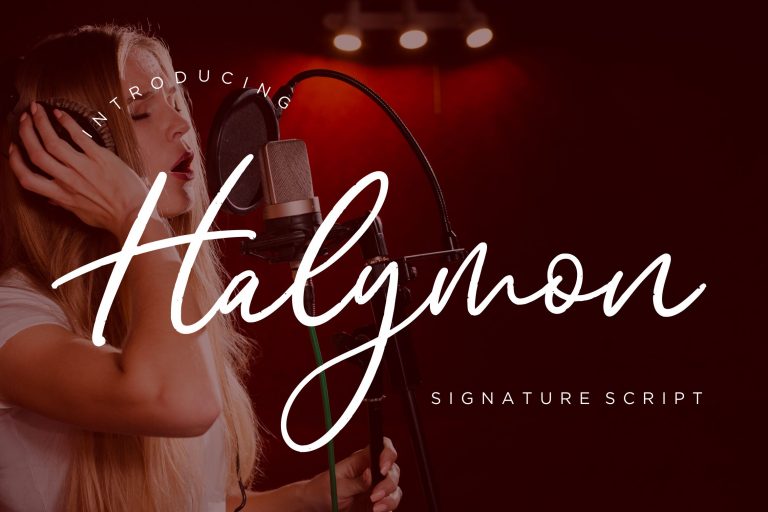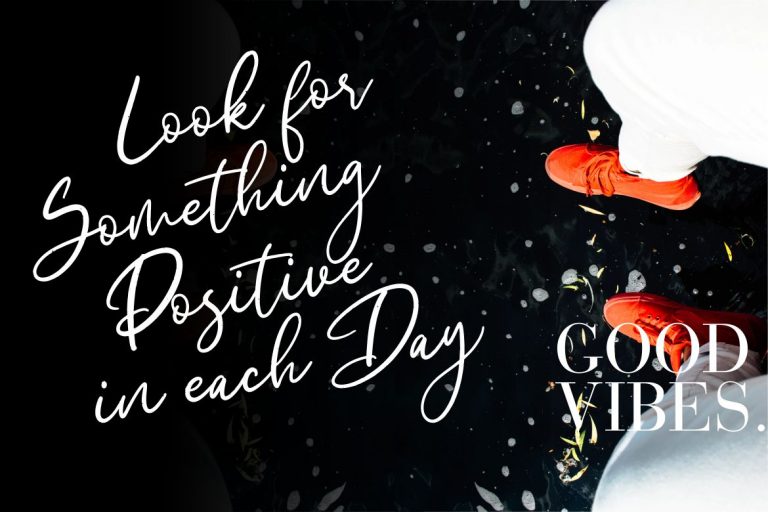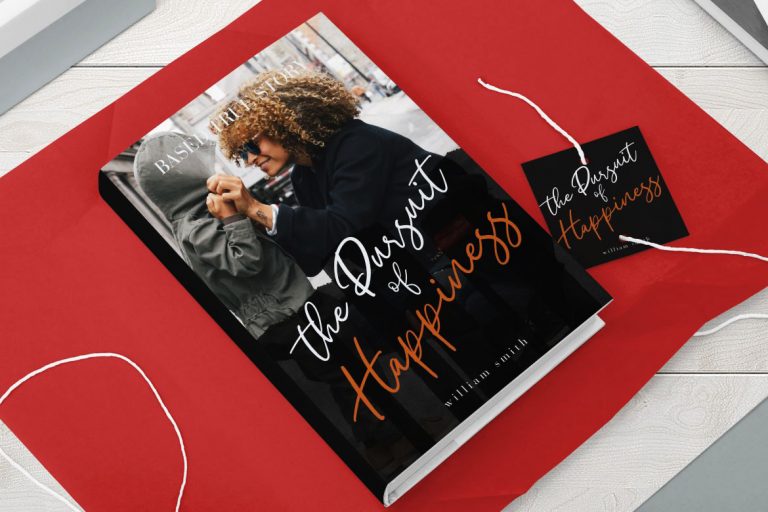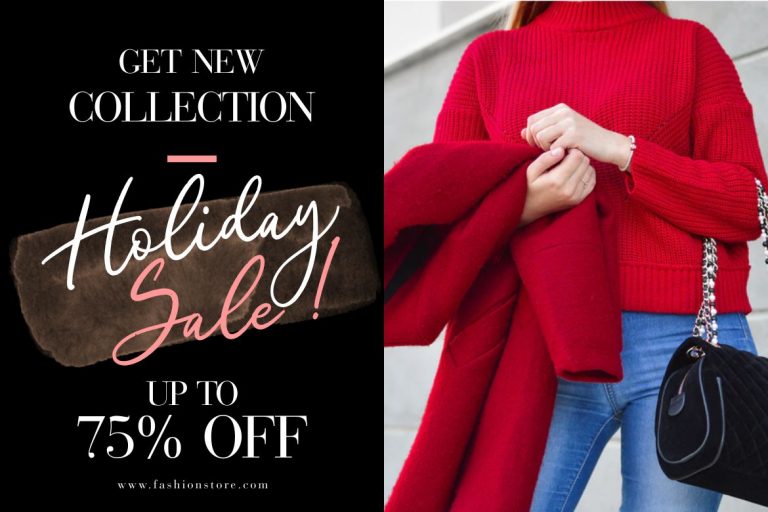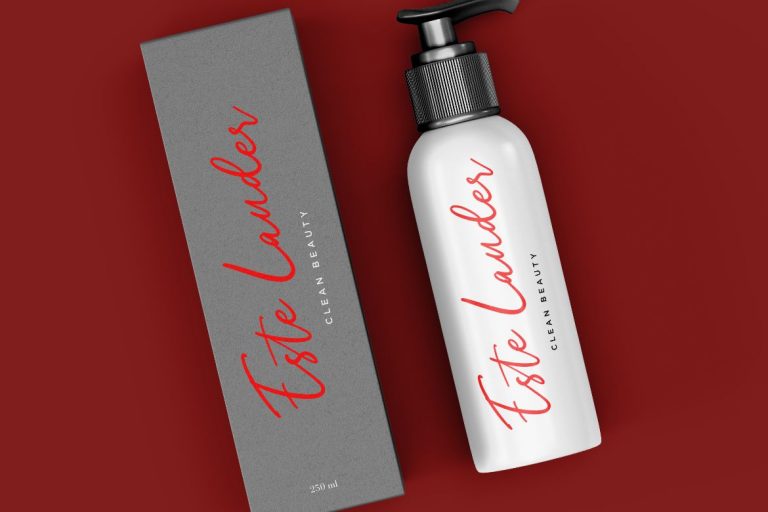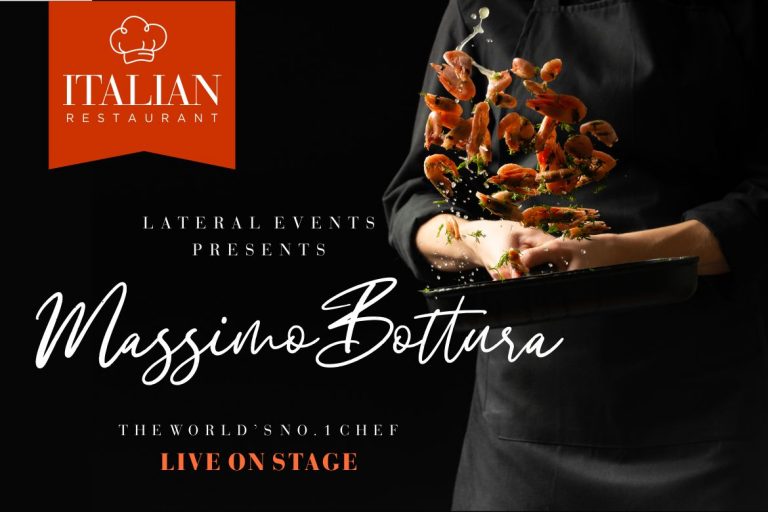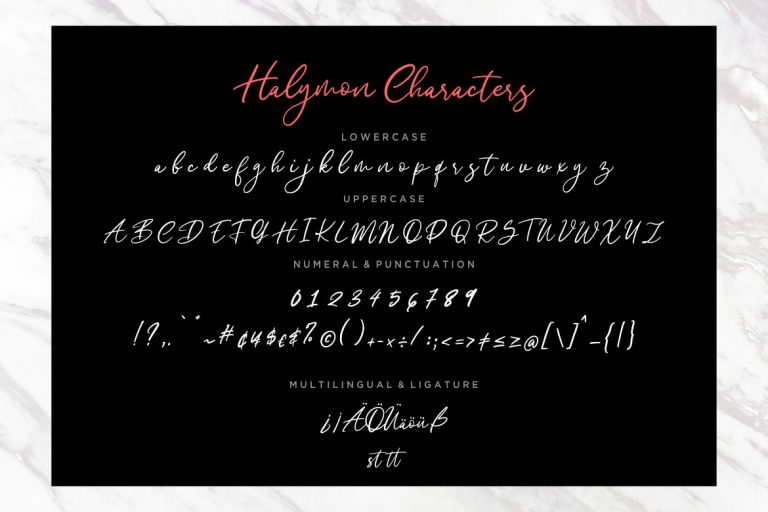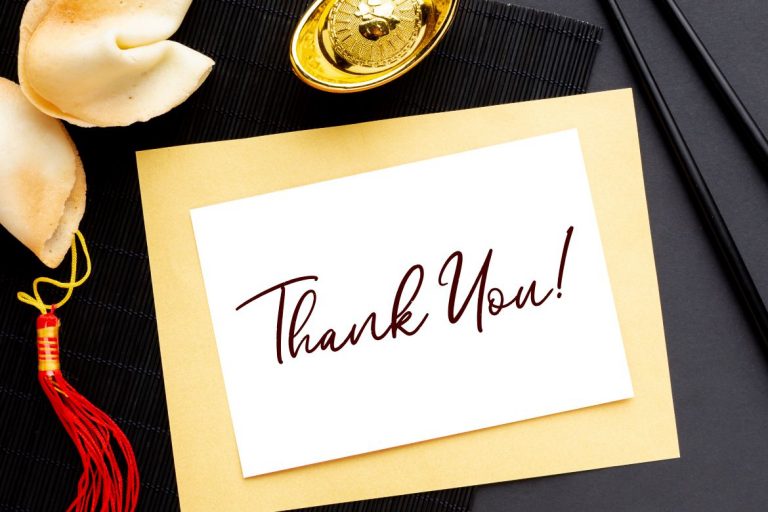
Halymon is a beautiful signature script font which personal touch of natural movement.
Halymon is perfect for branding projects, logo, wedding designs, social media posts, advertisements, product packaging, product designs, label, photography, watermark, invitation, stationery and any projects that need handwriting taste.
- Standard glyphs
- Ligature
- Fonts include multilingual support for; ä ö ü Ä Ö Ü ß ¿ ¡
Halymon Signature Script